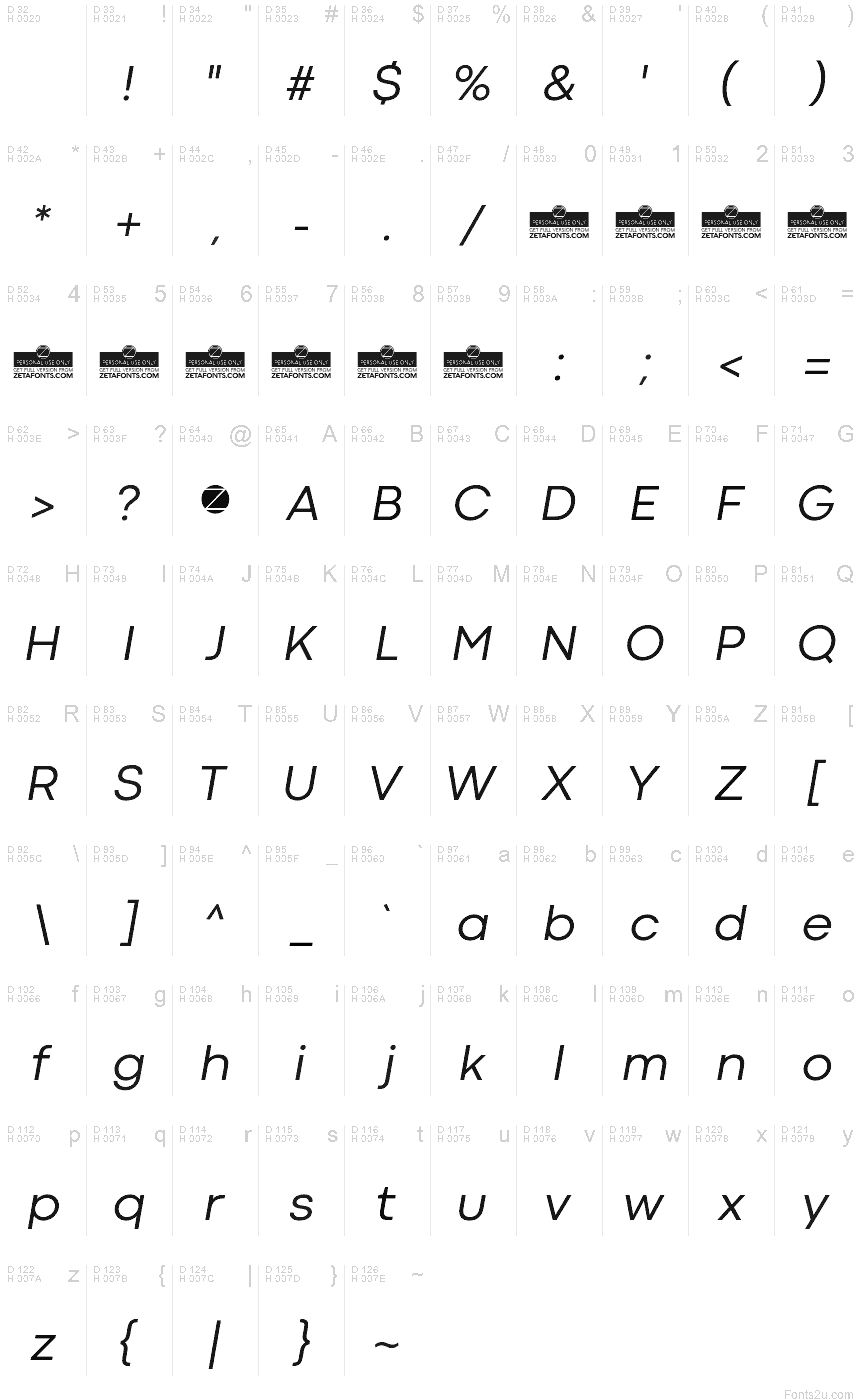
Codec Cold News Italic
Codec is a geometric sans serif type system, designed by Cosimo Lorenzo Pancini with Francesco Canovaro and Andrea Tartarelli. Codec provides you with two coherent variant fonts built on the same base skeleton: Codec Cold and Codec Warm.
In Codec Cold terminals are always cut parallel or perpendicular to the baseline, emphasizing geometry and giving the typeface a more constructed look. In Codec Warm, on the contrary, open diagonal cuts and two-storey letterforms give the typeface a slightly more humanist look and a gentler, warmer text feeling.
Both Codec Cold and Codec Warm come with a wide range of glyphs for language coverage, including cyrillic and greek alphabets, and of open type features, including small caps, positional numerals and swash forms.
Codec typefaces also include over a hundred variant ligature and alternate glyphs.
These glyphs, usually available as discretionary ligatures, have been made permanently active in the two Codec Logo subfamilies, designed for display use and logo design, and thus available with a bolder weight range and tighter metrics. Codec Logo Cold makes the cold geometry alive with funky ligatures, while Codec Logo Warm randomly stretches characters: both allow for quick, unexpected solutions in logo design and display type treatment.